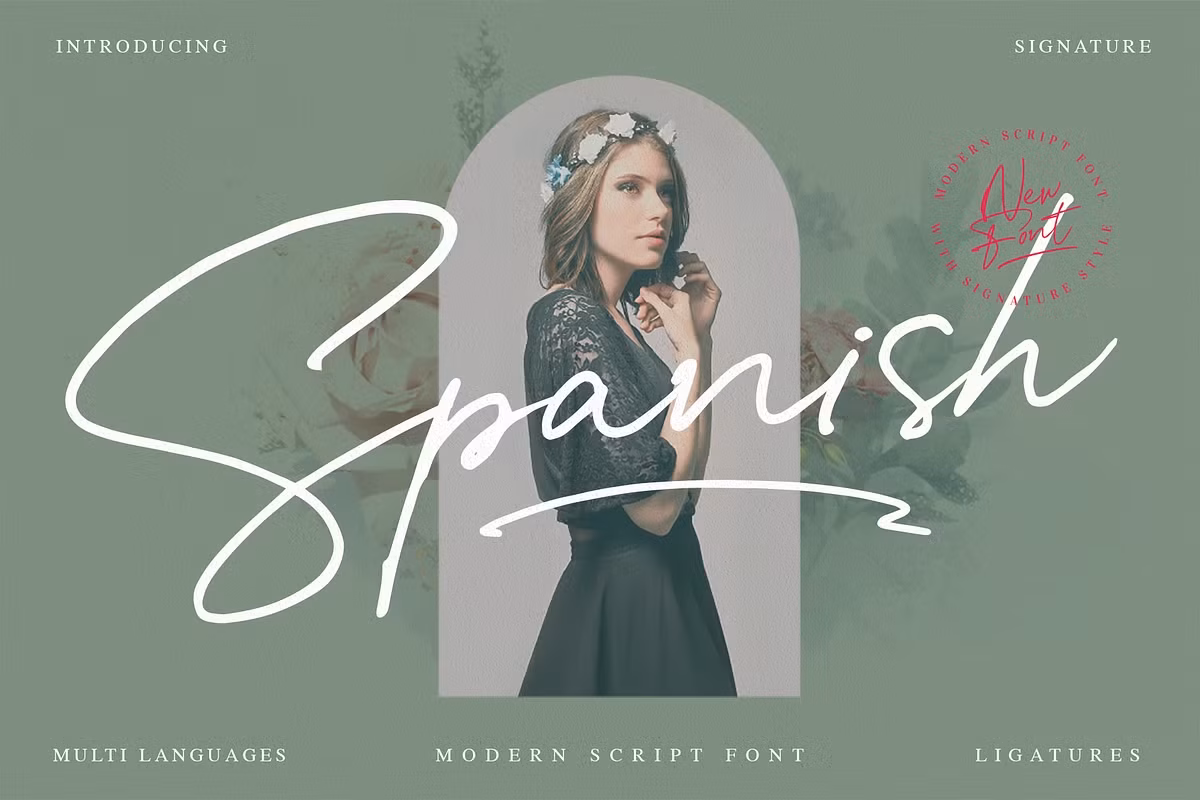
Spanish Signature Font Free Download is an elegant and sophisticated handwritten script typeface designed to add a personal touch to your designs. With its flowing curves and unique, signature-style design, this font is perfect for creating high-end logos, wedding invitations, branding, and personal stationery. Its refined yet organic feel adds a touch of authenticity and luxury to any project. Whether you’re working on a chic brand, a wedding stationery set, or a creative event, Spanish Signature Font Free Download allows you to experiment with its beautiful design in personal projects before purchasing a commercial license. Add elegance and individuality to your designs with this beautifully crafted signature font.